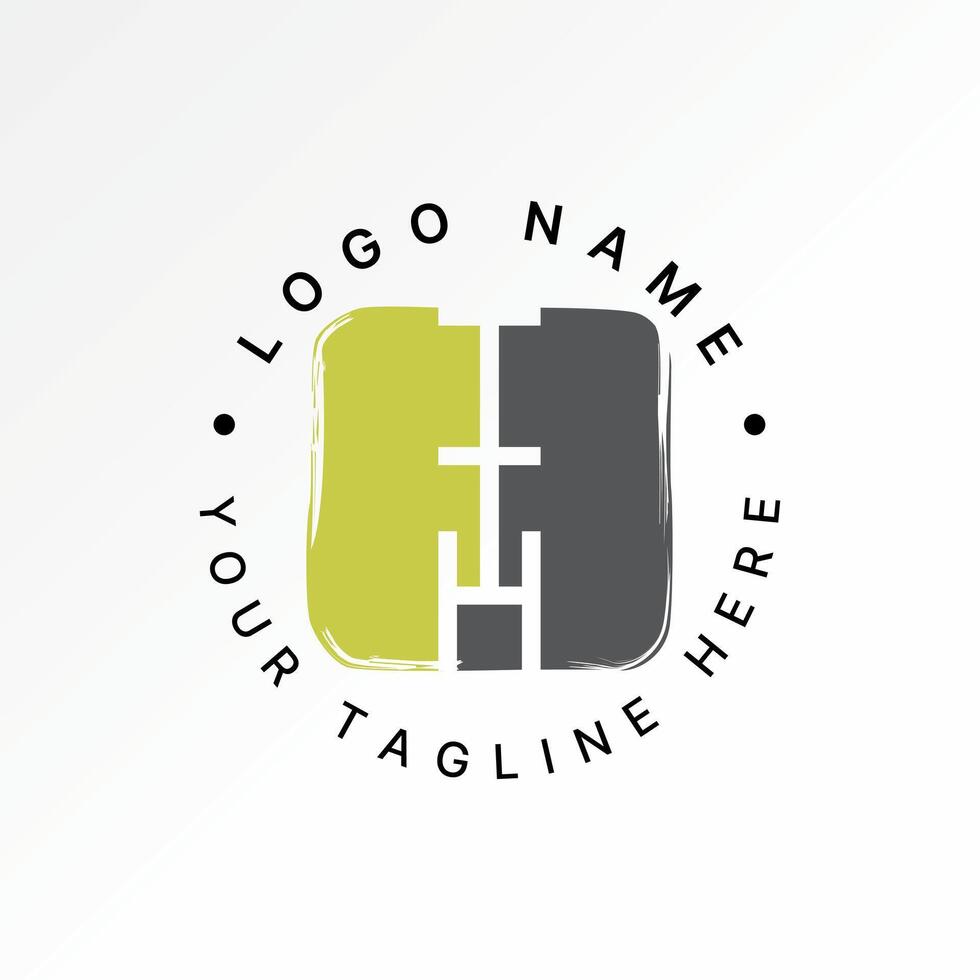
Logo design graphic concept creative premium stock image graphic letter TTH line font square top down scratch art monogram typography branding Pro Vector